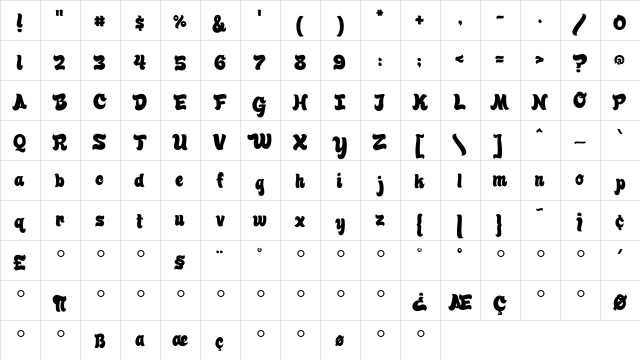
FinkBrush Medium Font Preview
FinkBrush Medium
Design Context for FinkBrush Typeface
FinkBrush flows with the natural rhythm of handwritten lettering, making it ideal for designs that call for warmth and personal expression.
Font Pairing: Combine FinkBrush with a simple geometric sans for maximum contrast — the tension between flowing curves and clean structure is a classic typographic pairing.
Pro Tip: Use FinkBrush for short runs of text — names, titles, or taglines. Extended body copy in script faces tires the eye quickly.